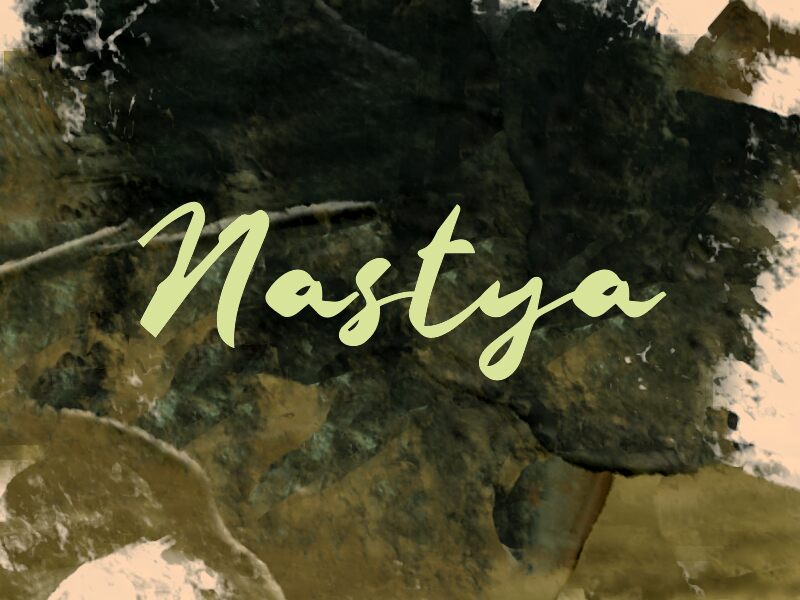
n Nastya font is a free brush font designed by wep with a signature-like appearance. It’s an expressive font with elements of elegance and sophistication. Life is all about adding personal touches, and this font will give a handcrafted feel to all your projects, letting your personality shine with dashing irregular lines and curves.
This font is recommended for branding purposes. Fashion brands and beauty products companies will want to be part of the magic as well. It can also be used for typography artwork and posters or drawn on products or invitation cards.
Nastya is a versatile and elegant free font that merges artistic flair with practicality. Perfect for a wide range of design projects, this font stands out with its clean lines and stylish curves. Whether you're designing a brochure, creating stunning social media graphics, or working on a personal project, Nastya provides the sophistication and readability you need.
With Nastya, you can easily elevate your designs while enjoying a contemporary aesthetic. This free font is available for download, allowing you to quickly incorporate it into your work and enhance your visual storytelling.